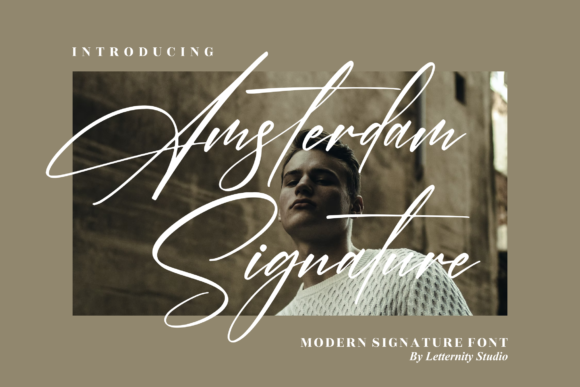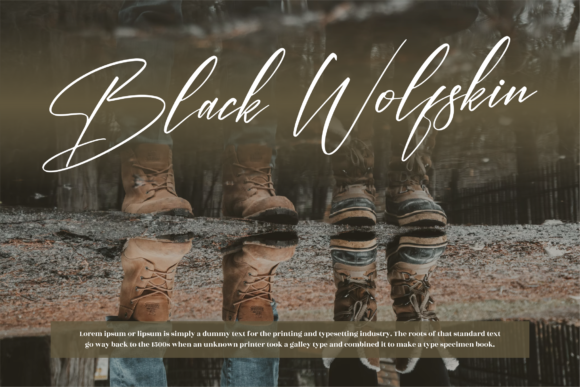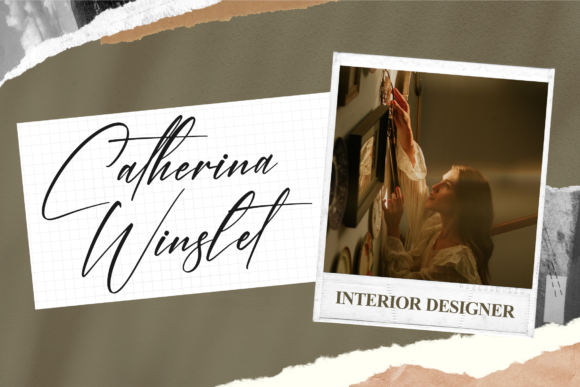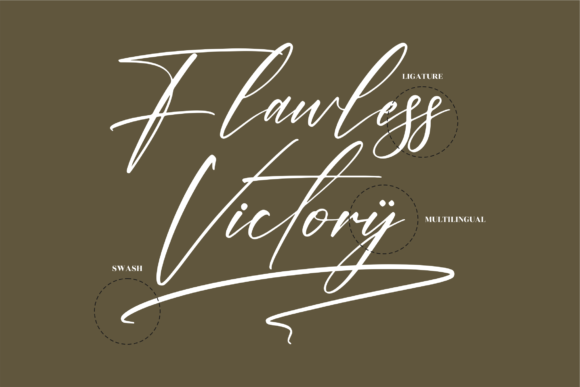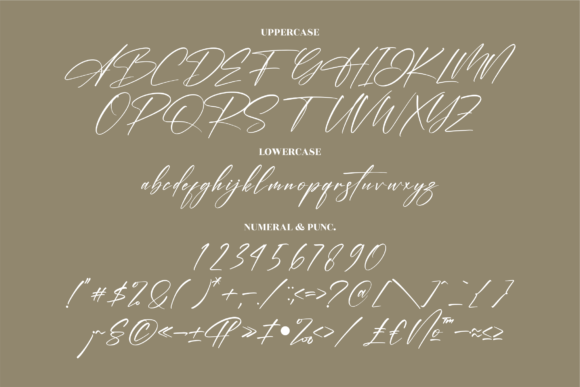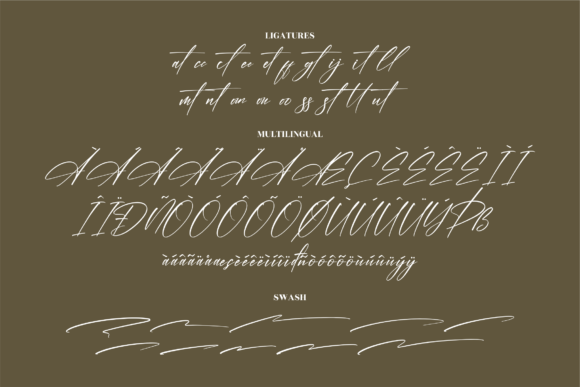
About Amsterdam Signature Font
Amsterdam Signature is an enchanting handwritten font. This versatile script font has a wide spectrum of applications ranging from greeting cards to headlines and is guaranteed to add a romantic feel to your next project.